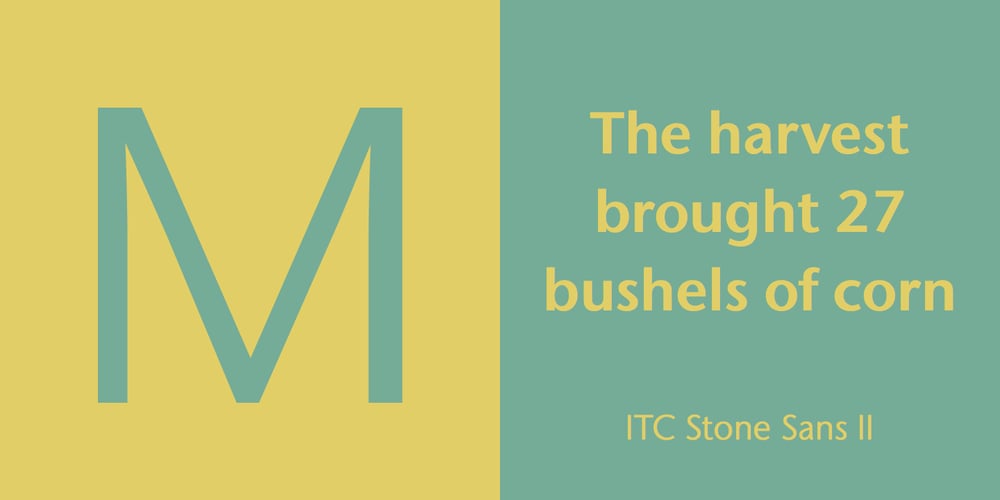
ITC Stone Sans II Font Family was designed by Sumner Stone and published by ITC. ITC Stone Sans II contains 24 styles and family package options. The ITC Stone Sans II typeface family is new from the drawing board up. Sumner Stone, who designed the original faces in 1988, recently collaborated with Delve Withrington and Jim Wasco of Monotype Imaging to update the family of faces that bears his name. Sumner was the lead designer and project director for the full-blown reworking – and his own greatest critic.The collaborative design effort began as a relatively simple upgrade to the ITC Stone Sans family. As so often happens, however, the upgrade proved to be not so simple, and grew into a major design undertaking. “My initial intent,” recalls Sumner, “was to provide ITC Stone Sans with even greater versatility. I planned to add an additional weight, maybe two, and to give the family some condensed designs.” As Sumner began to look more closely at his twenty-year-old typeface, he decided that it would benefit from more extensive design improvements. “I found myself making numerous refinements to character shapes and proportions,” says Sumner. “The project scope expanded dramatically, and I’m pleased with the final result. The redesign has improved both the legibility and the overall appearance of the face.” The original ITC Stone Sans is part of the ITC Stone super family, along with ITC Stone Serif and ITC Stone Informal. In 2005 ITC Stone Humanist joined the family. All of these designs have always offered the same three weights: Medium, Semibold, and Bold – each with an italic counterpart. Over time, Stone Sans has emerged as the godfather of the family, a powerful design used for everything from fine books, annual reports and corporate identity programs, to restaurant menus, movie credits and advertising campaigns.ITC Stone Sans, however, lacked one attribute of many sans serif families: a large range of widths and weights. “These fonts had enjoyed great popularity for many years – during which graphic designers repeatedly asked for more weights and condensed designs in the family,” says Sumner. “Their comments were the impetus.” ITC Stone Sans II includes six weights ranging from an elegant Light to a commanding Extra Bold. An italic counterpart and suite of condensed designs complements every weight. In all, the new family encompasses 24 typefaces.The ITC Stone Sans II family is also available as a suite of OpenType Pro fonts, allowing graphic communicators to pair its versatile design with the capabilities of OpenType. These fonts offer automatic insertion of ligatures, small caps and use-sensitive figure designs; their extended character set also supports most Central European and many Eastern European languages.ITC Stone® Sans II font field guide including best practices, font pairings and alternatives.